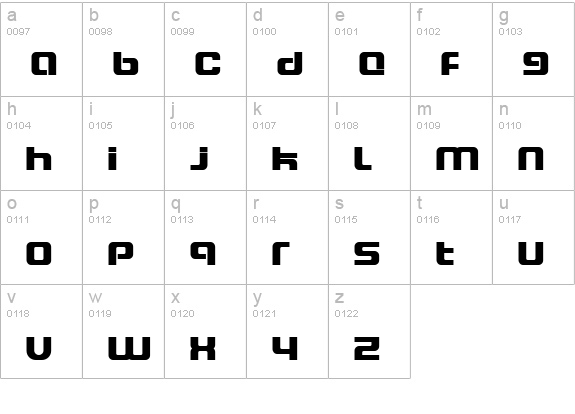
Blaster Eternal font is a dynamic and modern typeface that exudes energy and power. Its sleek, futuristic design makes it perfect for projects that require a bold and eye-catching font. Whether you're creating a poster, logo, or website, Blaster Eternal will make your text pop and command attention. What sets Blaster Eternal font apart is not only its striking appearance but also its versatility. It can be used for both headlines and body text, ensuring consistency and coherence in your design. The clean lines and sharp edges give this font a contemporary edge that will appeal to a wide range of audiences. And the best part? Blaster Eternal font is completely free to download at FontsMarket.com. This means you can easily access this powerful font and incorporate it into your projects without any cost. Don't miss out on this fantastic opportunity to enhance your designs with the captivating Blaster Eternal font today!